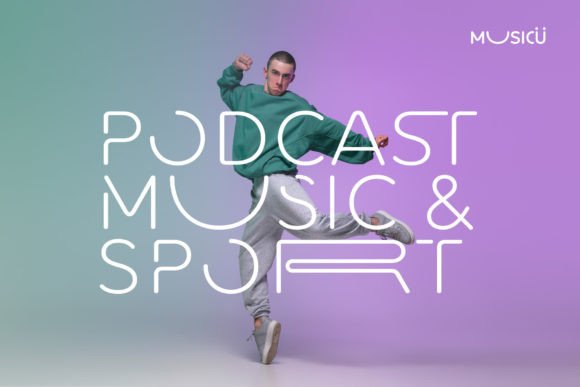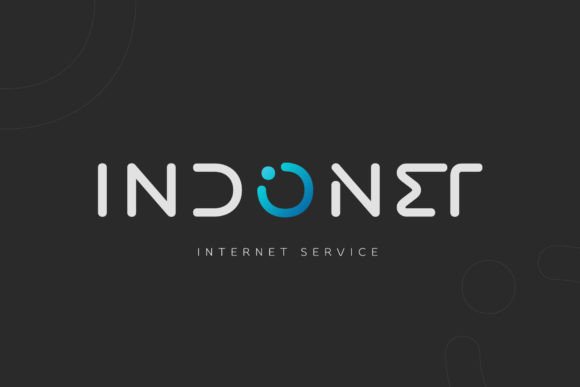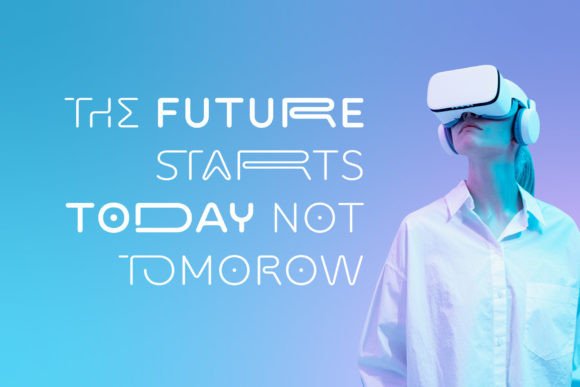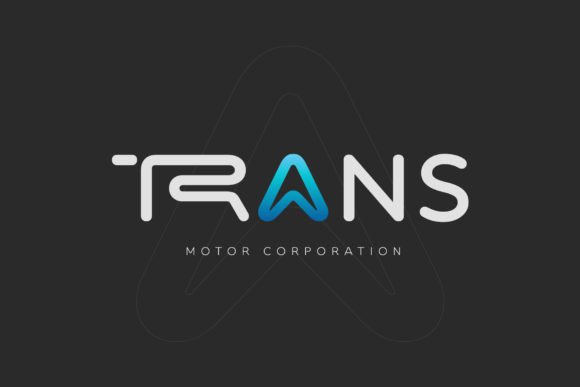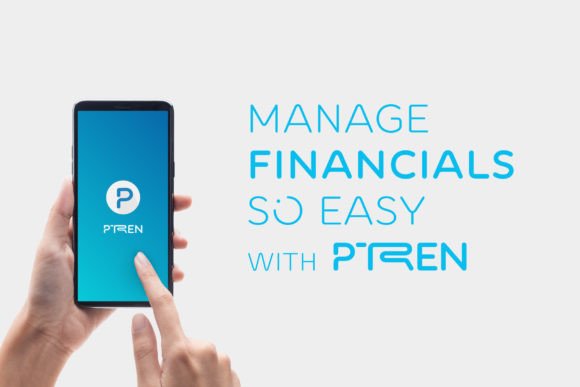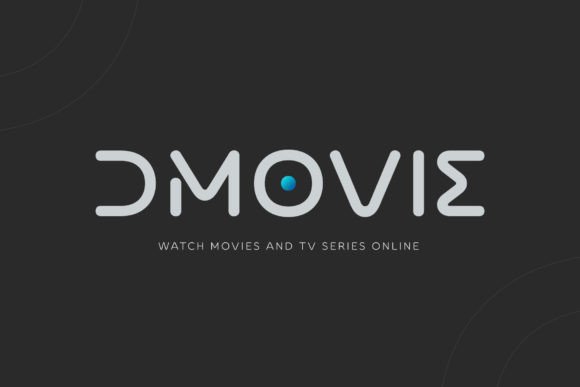
Introduction to Cyber Graph Font
Have you ever found yourself stuck in a design rut, searching for that perfect font to give your project a futuristic edge? I know I have. The excitement of finally stumbling upon a design resource that perfectly captures the essence of your creative vision is unmatched. Recently, I discovered the Cyber Graph Font, and I’m thrilled to share it with you.
This modern, rounded font exudes a bold and futuristic vibe, making it an ideal choice for designers looking to infuse their work with a sci-fi touch. With its sleek design and high-quality aesthetic, Cyber Graph Font is a valuable addition to any designer’s toolkit. And the best part? It’s available for free download, complete with a transparent background, allowing for seamless integration into your designs.
Whether you’re working on a personal project or a commercial client, the Cyber Graph Font is sure to elevate your designs and leave a lasting impression.
Key Features of Cyber Graph Font
- High-quality design resource ideal for creative projects and presentations.
- Includes a range of customizable glyphs and characters for unique and creative expression.
- Designed to be versatile and adaptable, suitable for use in a variety of design applications, including digital graphics, print materials, and web design.
Honest Review: Cyber Graph Font
As a designer, I’m always on the lookout for high-quality design resources to elevate my creative projects. Recently, I stumbled upon the Cyber Graph Font, and I must say, it’s been a game-changer for my work.
- What works well: ✨ The Cyber Graph Font is incredibly versatile, making it perfect for a wide range of design projects. Its modern aesthetic and sleek lines give it a futuristic feel that’s perfect for sci-fi or tech-related designs.
However, there are a few limitations to consider: ⚠️ The font may not be suitable for all design projects, particularly those that require a more traditional or classic look. Additionally, the font’s futuristic feel may be overwhelming for some designs.
Overall, I’m thoroughly impressed with the Cyber Graph Font. It’s a high-quality design resource that’s perfect for designers who want to add a touch of modernity to their work. With its versatility, free download, and transparent background, it’s a must-have for any designer’s toolkit.
Cyber Graph Font is a high-quality, free download design resource ideal for creative projects that require a futuristic and modern touch. Its transparent background makes it easy to integrate into various design applications.
To get the most out of Cyber Graph Font, experiment with different font sizes, colors, and combinations to create unique and eye-catching designs.
Common Use Cases for Cyber Graph Font
Cyber Graph Font is ideal for designing futuristic and modern projects, such as:
- Technology and gadget presentations
- Science fiction-themed posters and flyers
- Space and astronomy-related designs